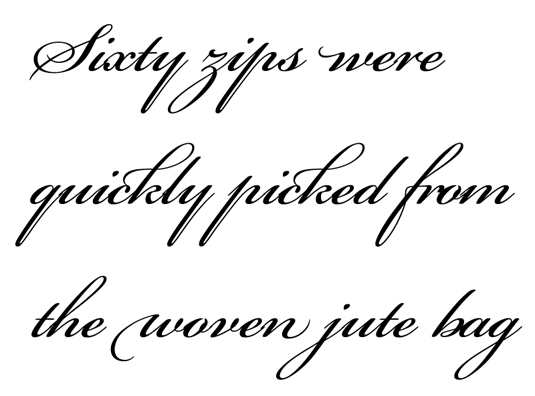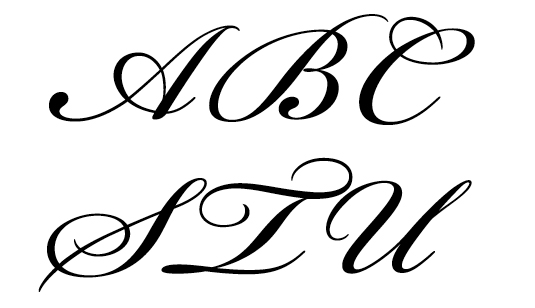
Greatest fonts countdown: 79 - Bickham
We're counting down the 100 greatest typefaces in existence - here's the font at number 79.
FontShop AG, the renowned type foundry, conducted a survey based on historical relevance, sales at FontShop.com, and aesthetic quality. With a few additions from the experts at Creative Bloq and Computer Arts magazine, the best fonts ever were selected for the new book, 100 Best Typefaces Ever.
But without further ado, here is the 79th best typeface…
79. Bickham Script
- Richard Lipton, 1997
Richard Lipton was born in New York in 1963 and studied art and design at Harpur College, before starting work in 1984 as a freelance illustrator and calligrapher. He spent eight years at Bitstream, where he revamped the font library and co-developed the exclusive font families Arrus and Cataneo.
He released his most successful typefaces at The Font Bureau (Bremen, Nutcracker, Shimano, Sloop and others) and Adobe (Bickham Script). Within only a few short years, the adaptable Bickham Script had become a best-seller in the USA. It was very popular as a wedding script, but it was also used heavily in editorial design and packaging.